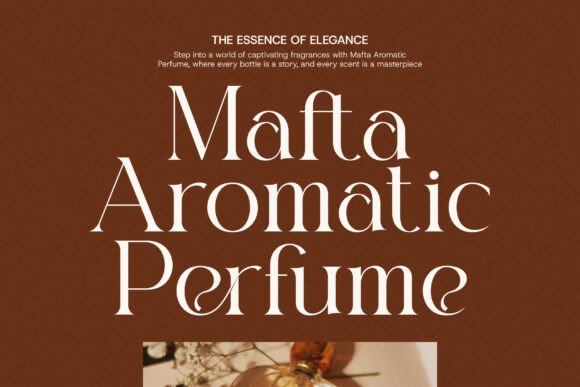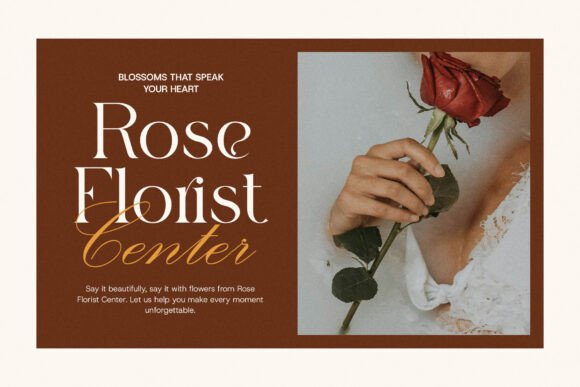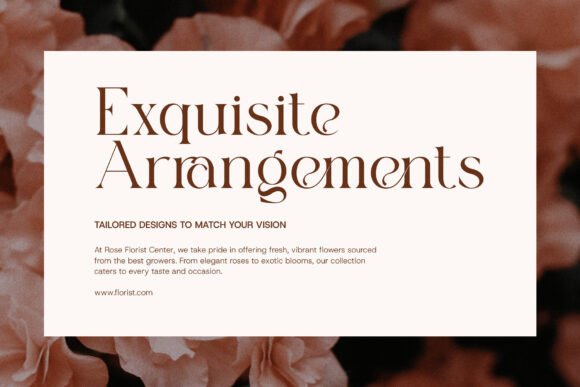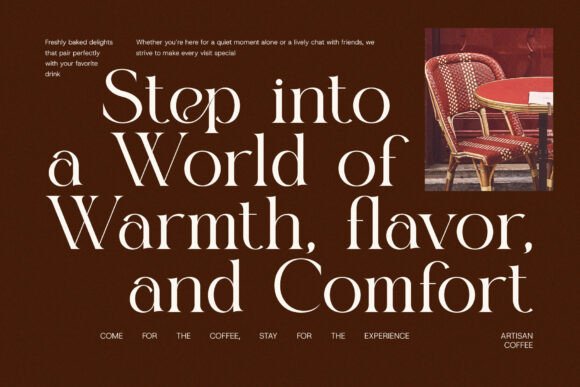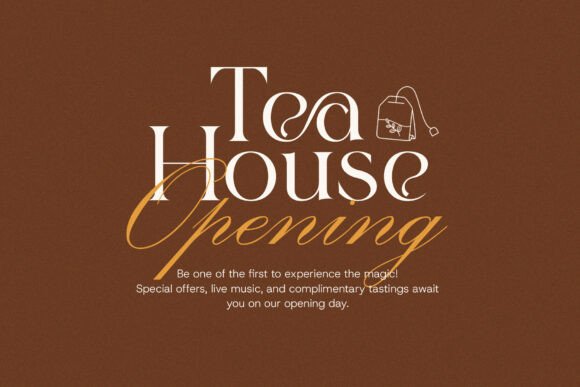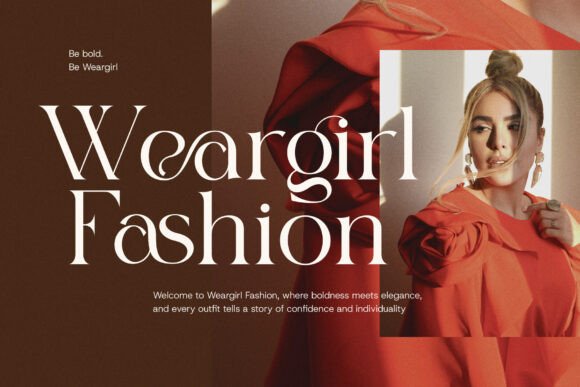
Introduction to Higlean Font
Introducing **Higlean Modern Serif Font**, a sleek and sophisticated typeface that effortlessly combines modern elegance with classic charm.
Designed for those who appreciate timeless style with a contemporary twist, Higlean brings a refined, polished look to any creative project Its unique design elements and **beautiful ligatures** make it the perfect choice for logos, branding, websites, magazines, product packaging, and advertisements.
Key Features of Higlean Font
Why Choose Higlean Font?